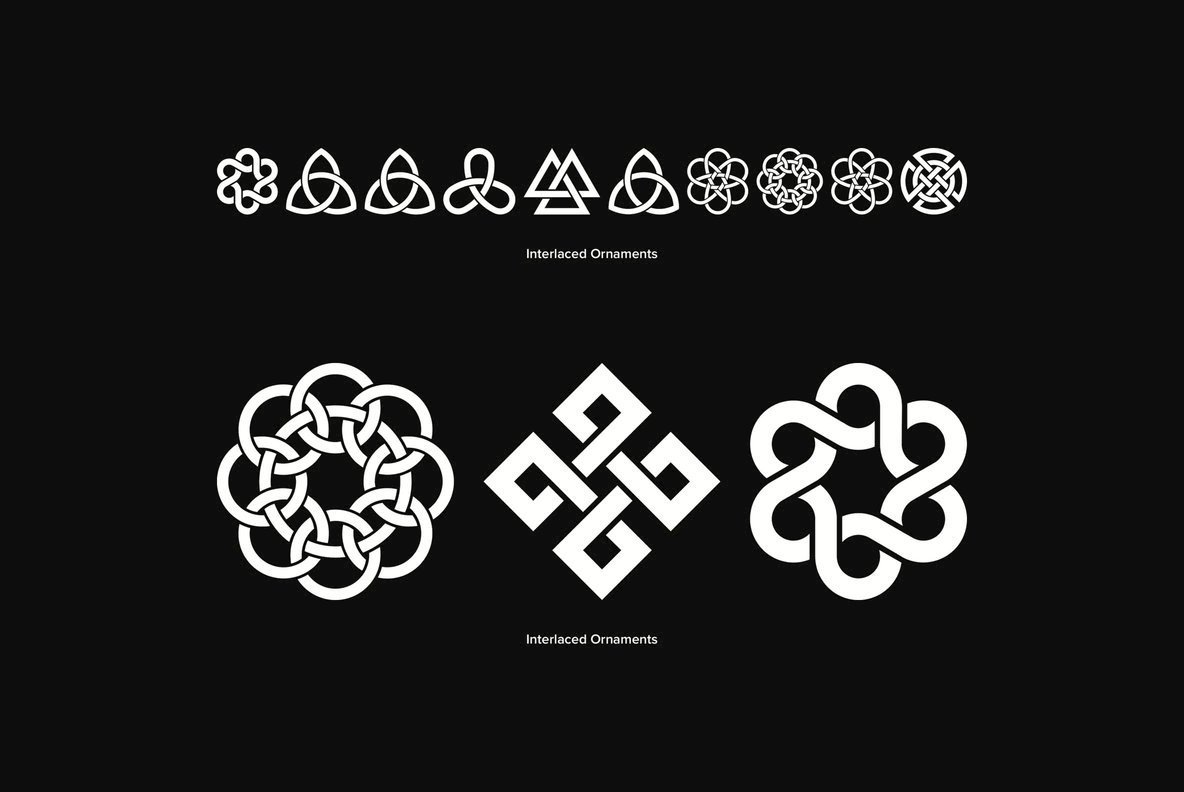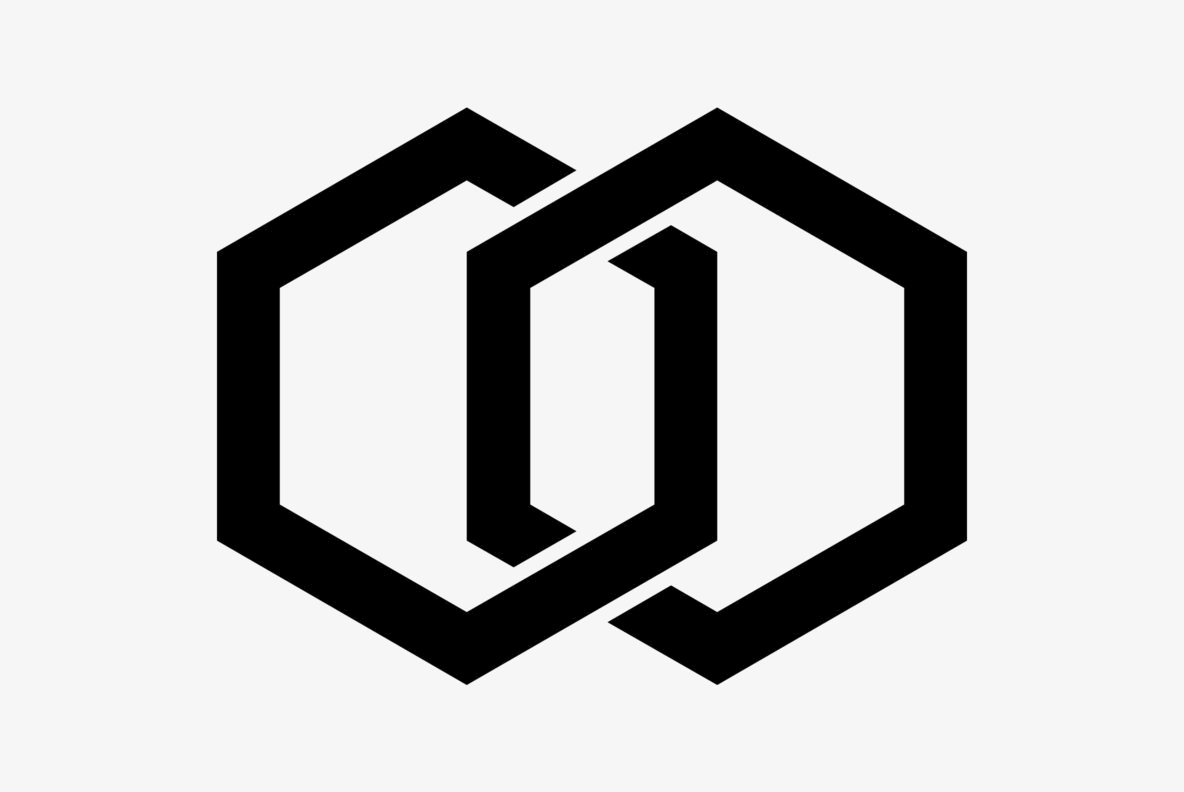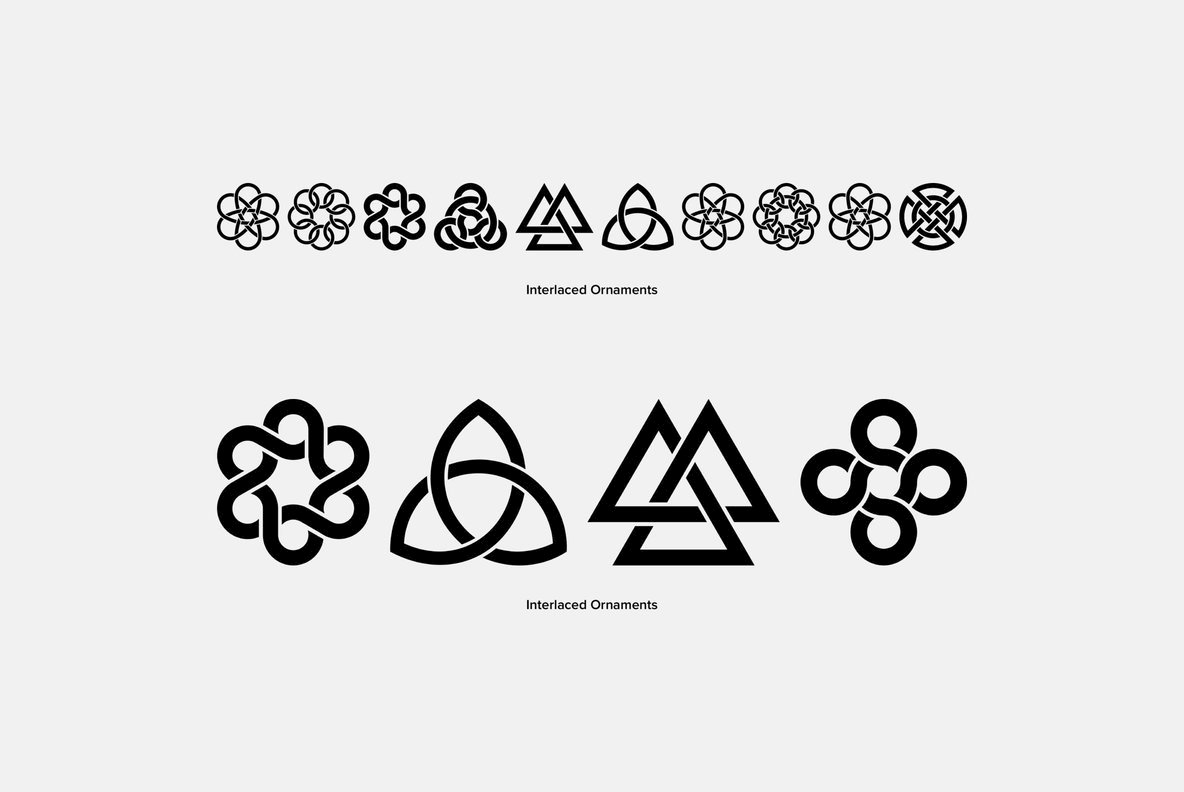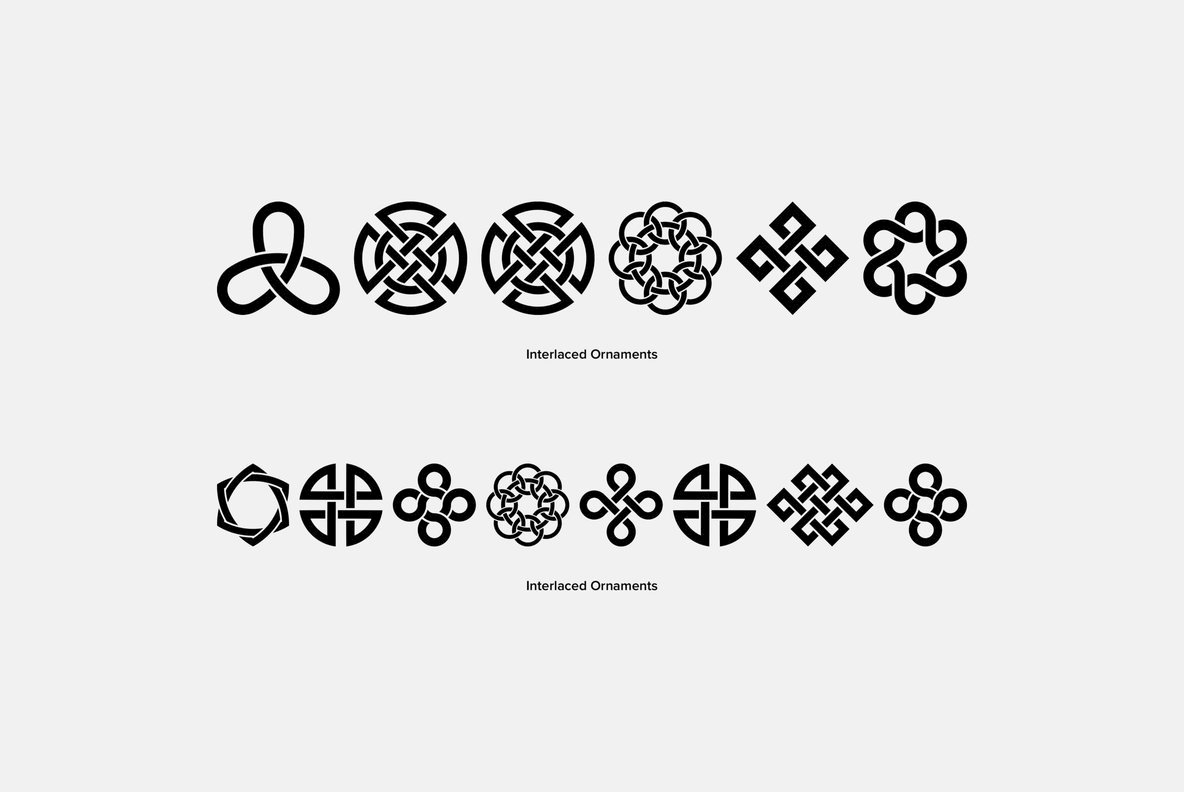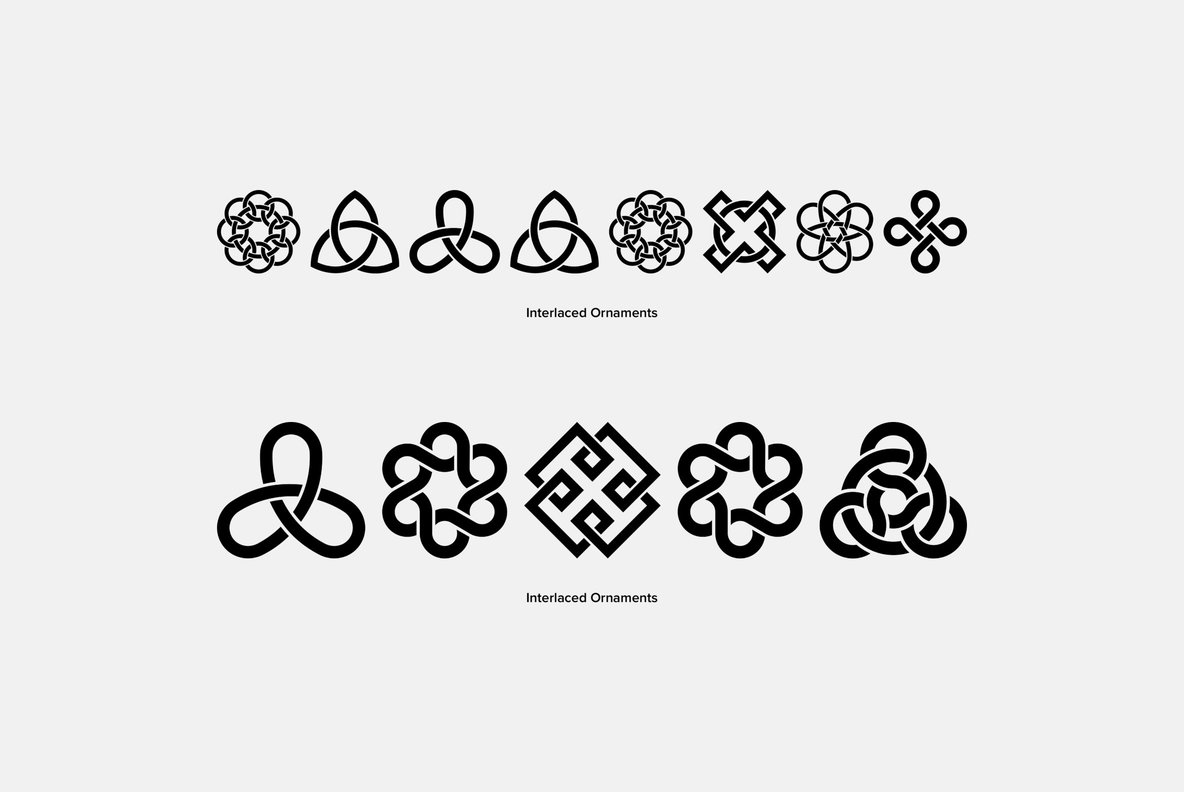
Interlaced Ornaments
Interlaced Ornaments is composed of various geometric shapes appearing to be woven together. There is an assortment of 69 ornaments located under the character set and shift + character set keys.
Gerald Gallo is a professional graphic designer.While designing trademarks and logotypes, Gerald often designed unique lettering. It was a natural step to create entire alphabets from some of these designs. However, it was very difficult to have a font produced before the advent of the personal compute...